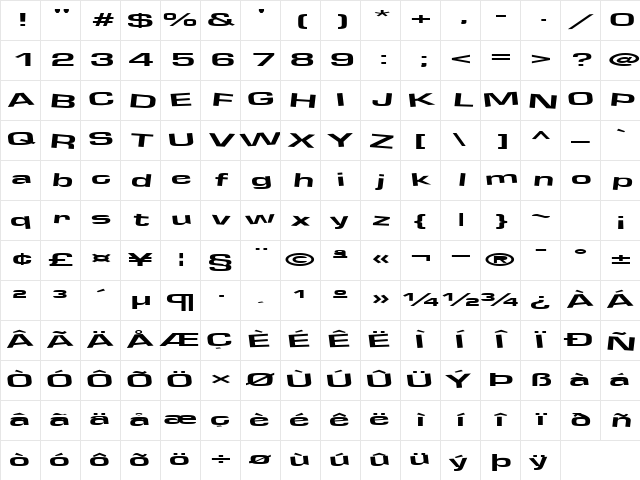
SodaJerk19 Regular
SodaJerk19 Family
Design Context for SodaJerk19
SodaJerk19 is a composed and adaptable typeface that performs quietly and consistently across a wide range of design contexts.